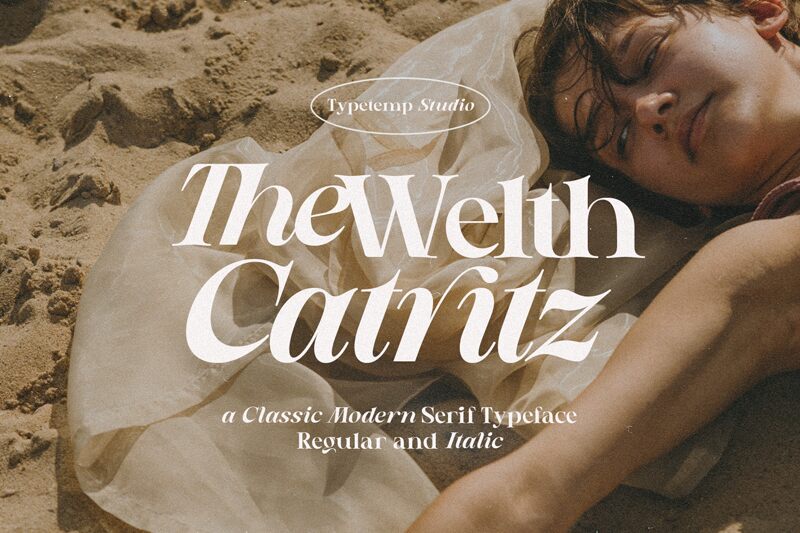
Welth Catritz Italic, a classic modern serif font from Typetemp Studio, effortlessly merges timeless elegance with a contemporary twist.
Its bold weight adds a touch of confidence to any project, making it perfect for corporate branding and logo designs that demand attention. The sleek and sophisticated curves of this typeface lend themselves well to high-end fashion editorials or luxury product packaging. Welth Catritz Italic also shines in editorial layouts, where its legibility and refined aesthetic elevate the reading experience.
With its versatility and striking appeal, this font is an essential tool for designers seeking to make a lasting impression.